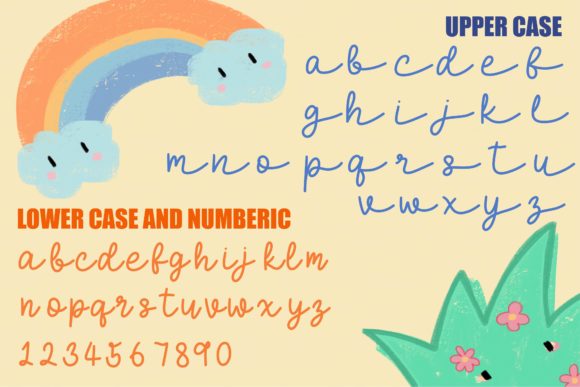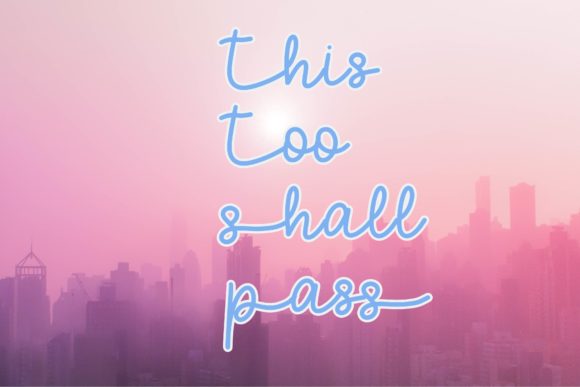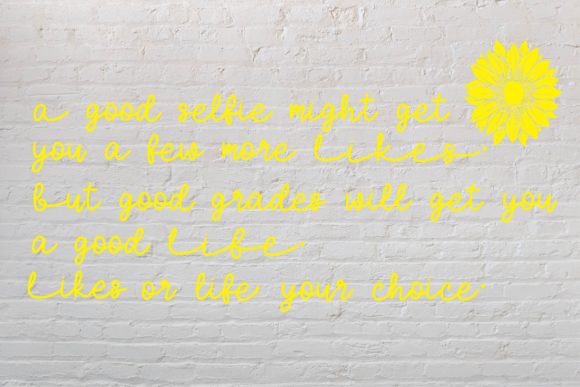
The Goodday Font: A Fun and Quirky Companion for Your Creative Projects
I’ll never forget the time I was working on a project for a client who wanted a font that embodied fun, quirkiness, and authenticity. I had spent hours scouring the internet for the perfect match, but nothing seemed quite right. That was until I stumbled upon the Goodday font. With its enchanting handwritten style, it instantly turned my creative idea into a true standout. In this article, I’ll share my experience with the Goodday font, its features, and how to make the most of it in your designs.
An Honest Review of Goodday Font
What I Love About Goodday Font
- ✨ The playful, cursive script that adds a personal touch to any design
- ✅ The font’s versatility, making it suitable for a wide range of creative projects
- 💫 The unique character set that includes OpenType features, glyphs, and stylistic alternates
- 🎉 The way it instantly elevates the tone of your design to fun, quirky, and authentic
While Goodday font is an excellent choice for many projects, there are a few things to keep in mind:
- 🤔 The font may not be the best choice for very formal or professional designs, as it can come across as too playful
- ⚠️ Some characters may not work well in very small font sizes, so it’s best to use it at larger sizes
The Designer Inspiration Behind Goodday Font
The Goodday font was designed with the intention of creating a fun, quirky, and authentic font that would add a personal touch to any design. The designer wanted to create a font that would evoke a sense of playfulness and creativity, while still being legible and easy to read.
| What is the Goodday font best suited for? | The Goodday font is best suited for creative projects that require a fun, quirky, and authentic touch, such as invitations, social media graphics, and branding materials. |
| Is Goodday font suitable for body text? | While Goodday font can be used for body text, it’s recommended to use it at larger font sizes to ensure readability. |